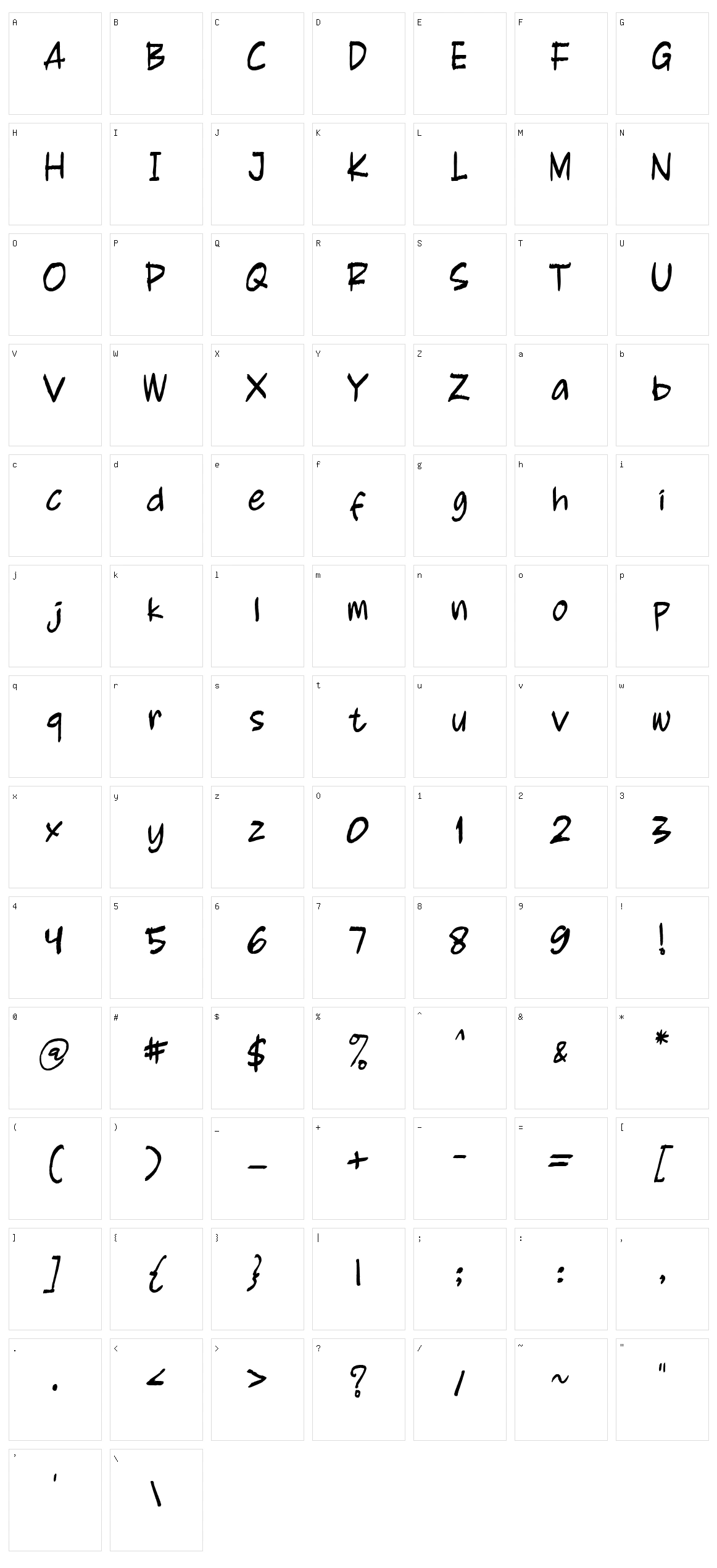
The free font Boomerank is carefully designed by Scratch Design, showcasing a thoughtful balance of creativity and usability and falls under the Trash font style. When you download the ZIP file, it contains only 101.99 KB of font files, making it lightweight and quick to download. Please review the license details below to understand permitted usage and distribution rights. If license information is not available, we recommend using this font for personal projects only or contacting the author directly for commercial usage permissions.